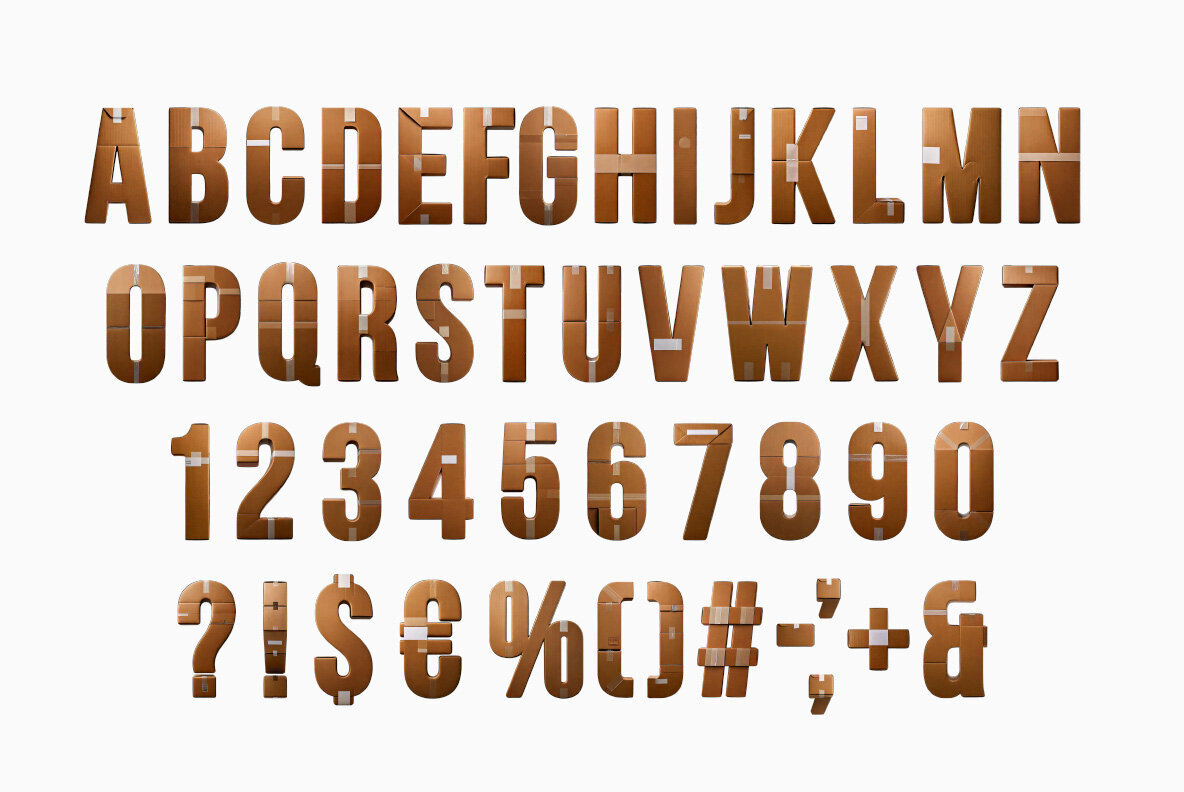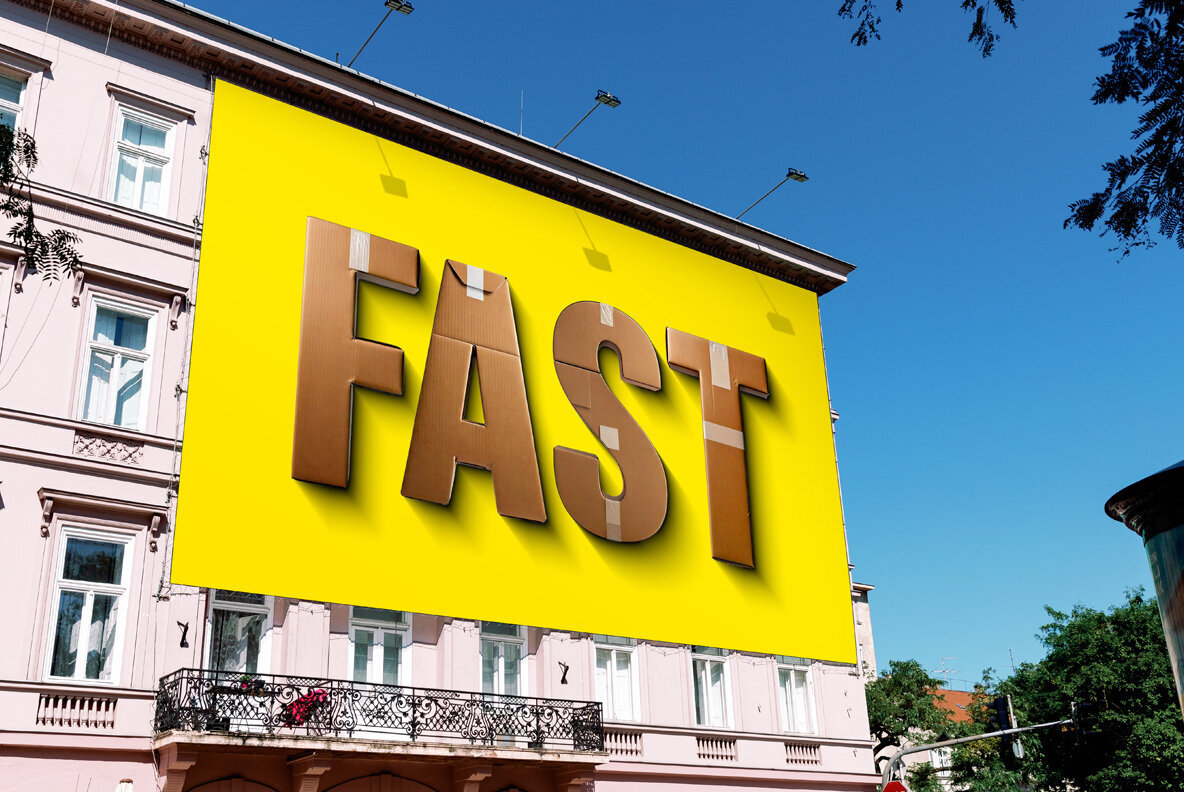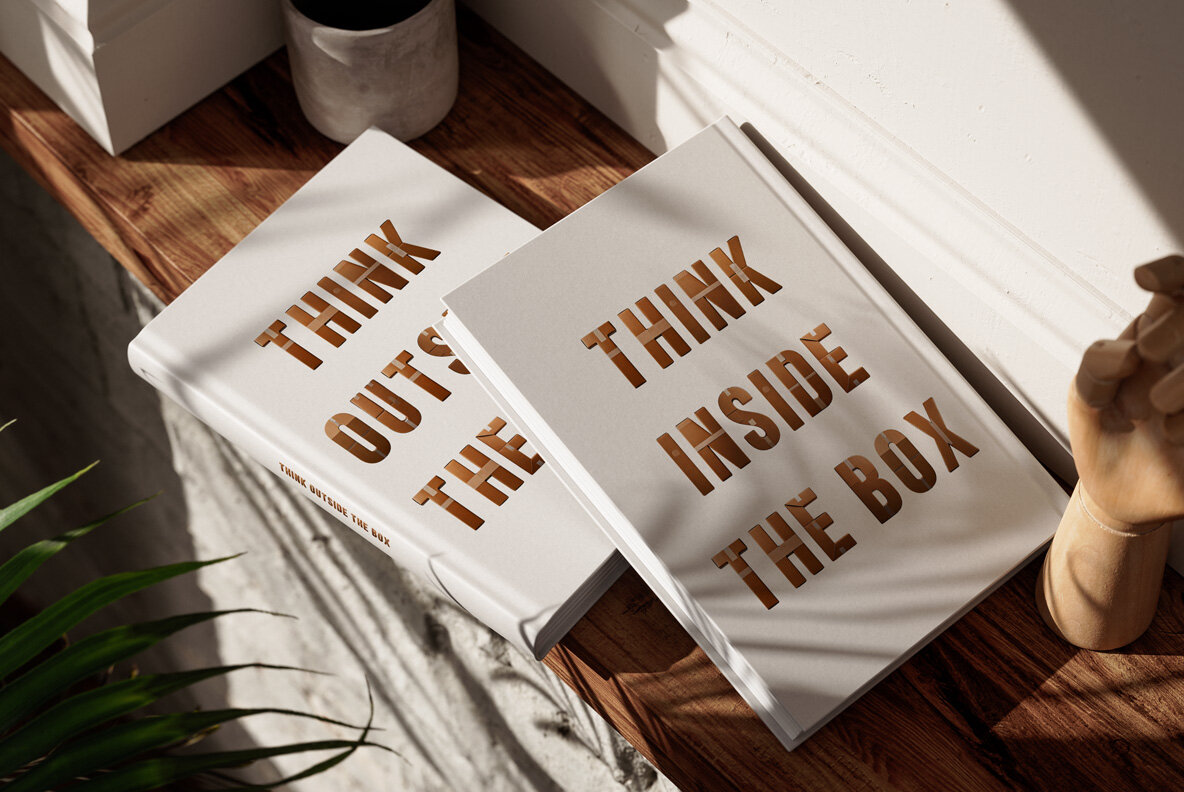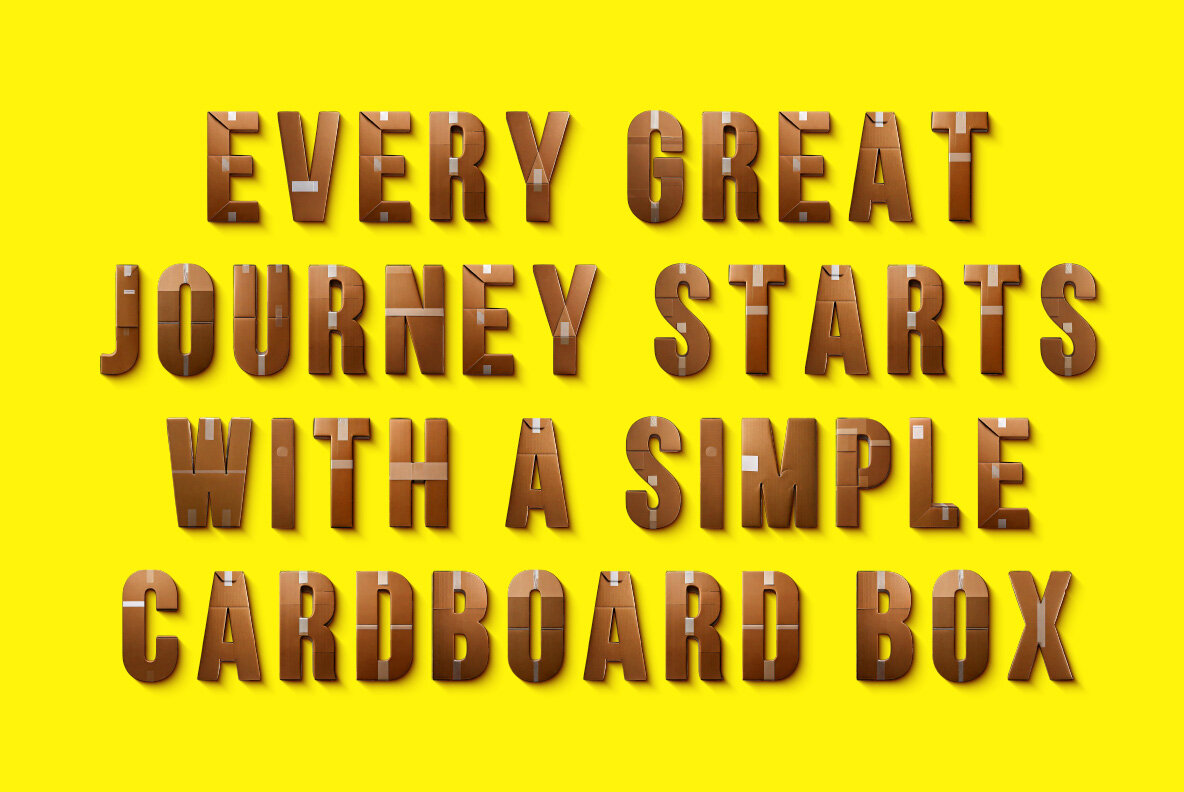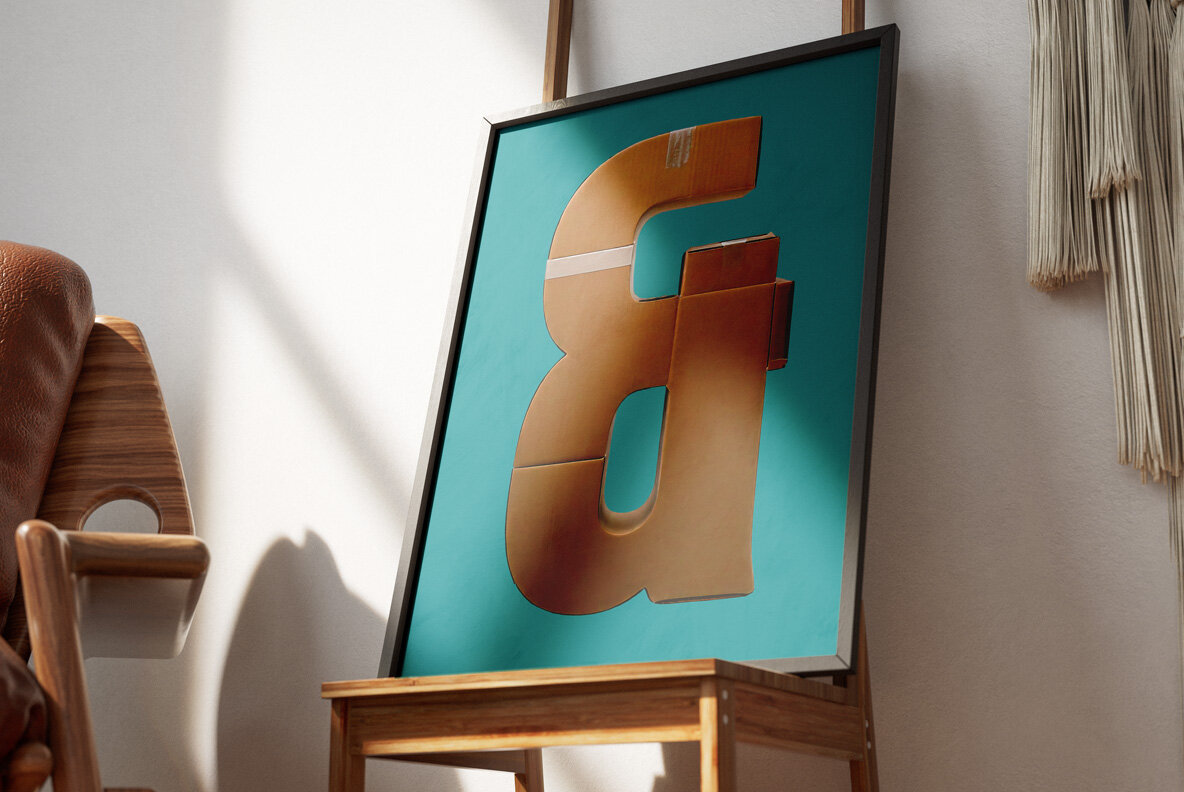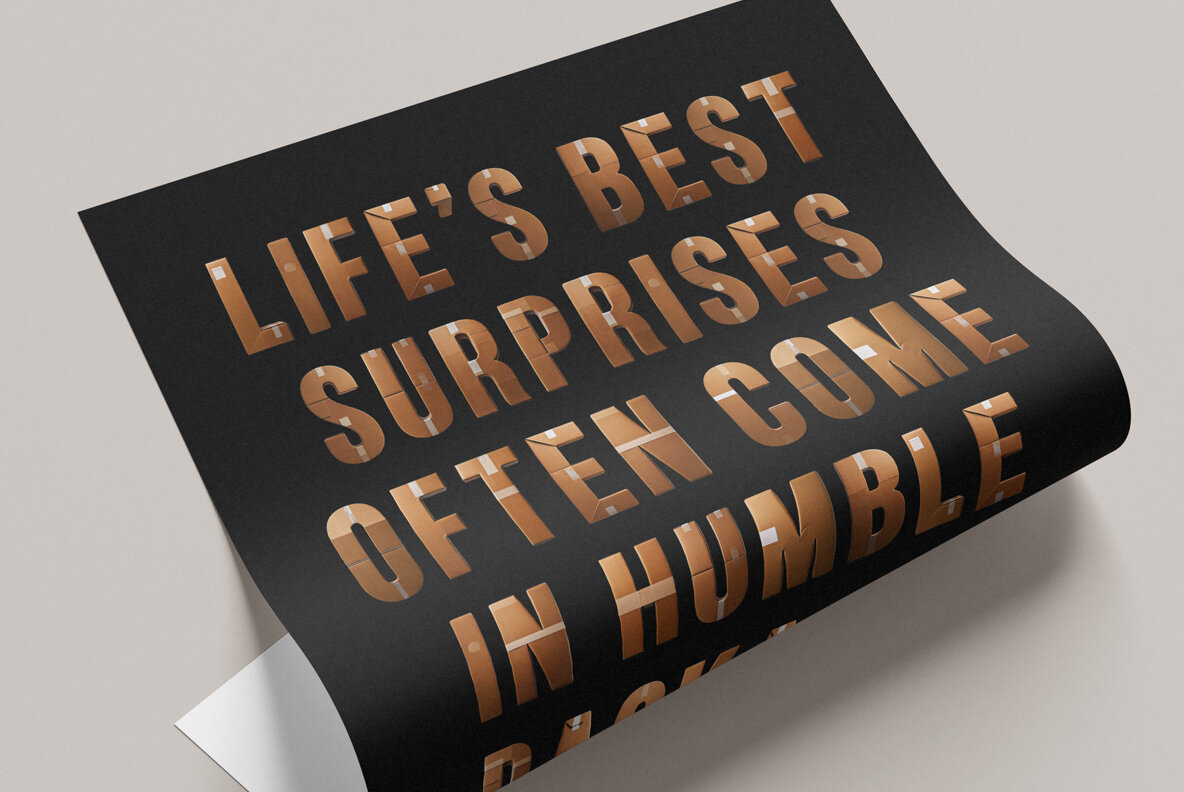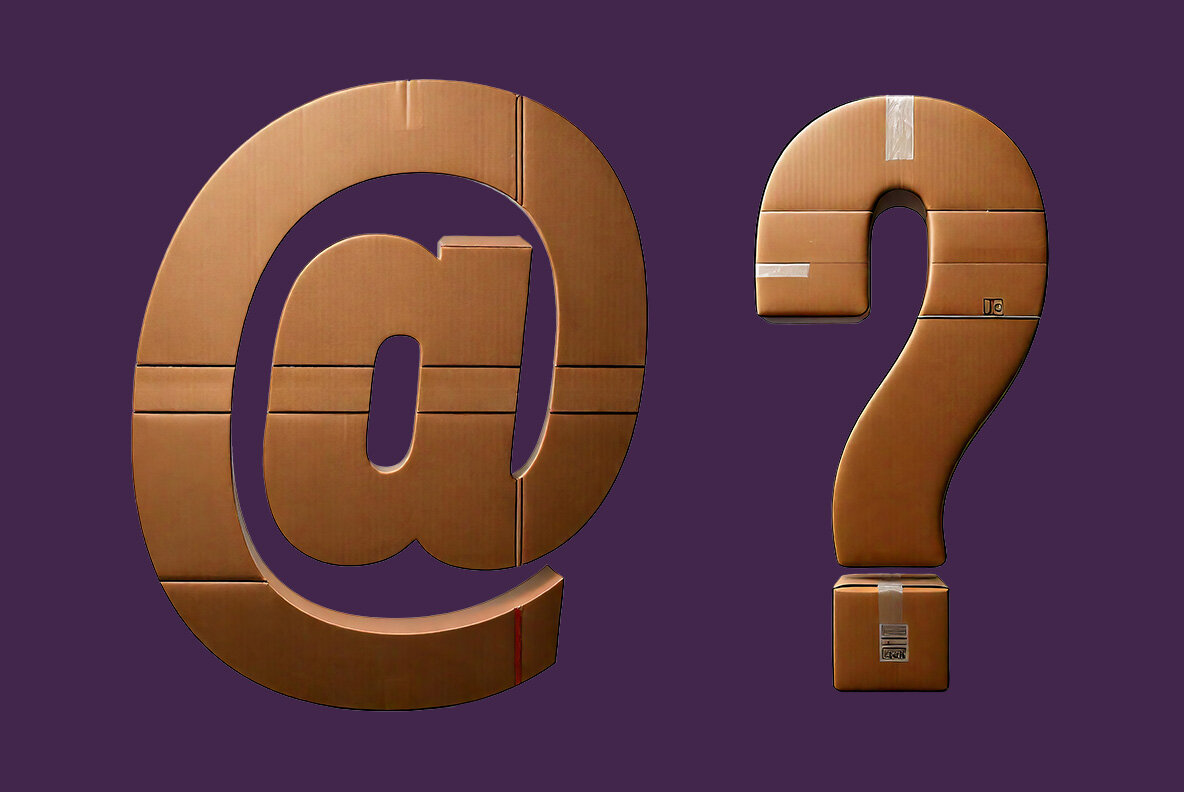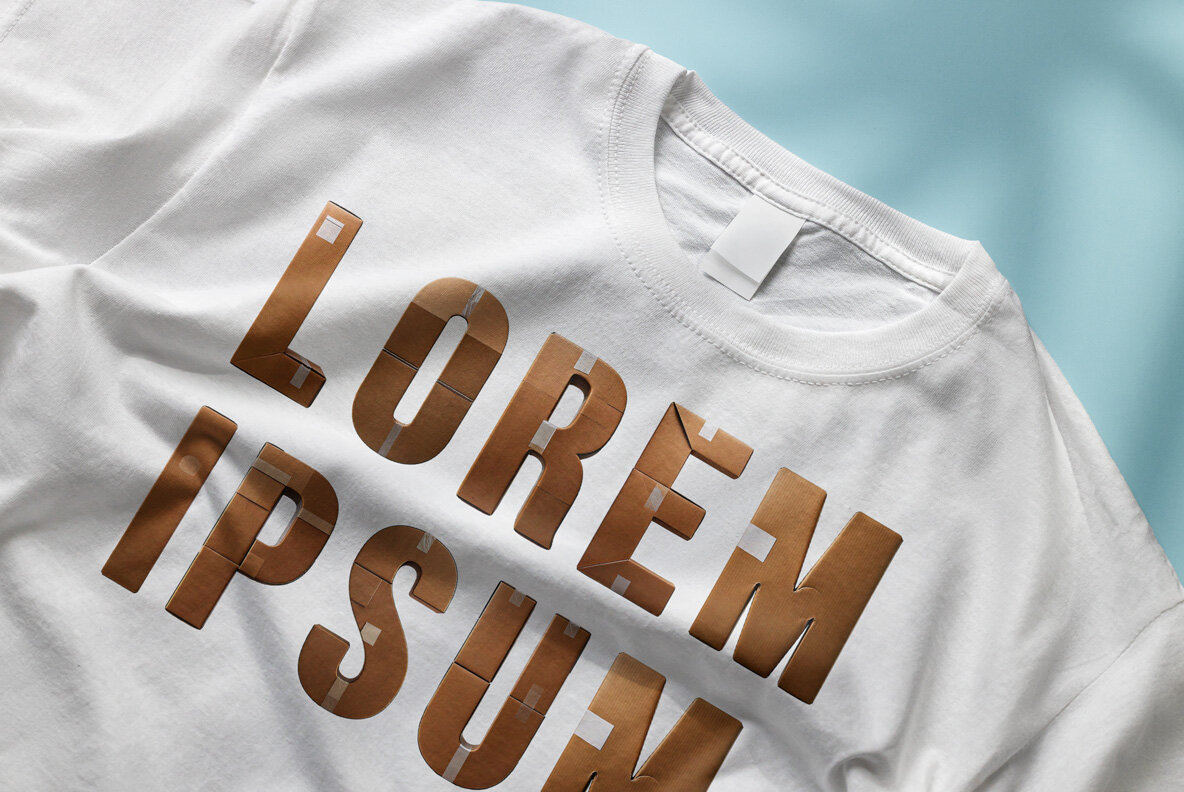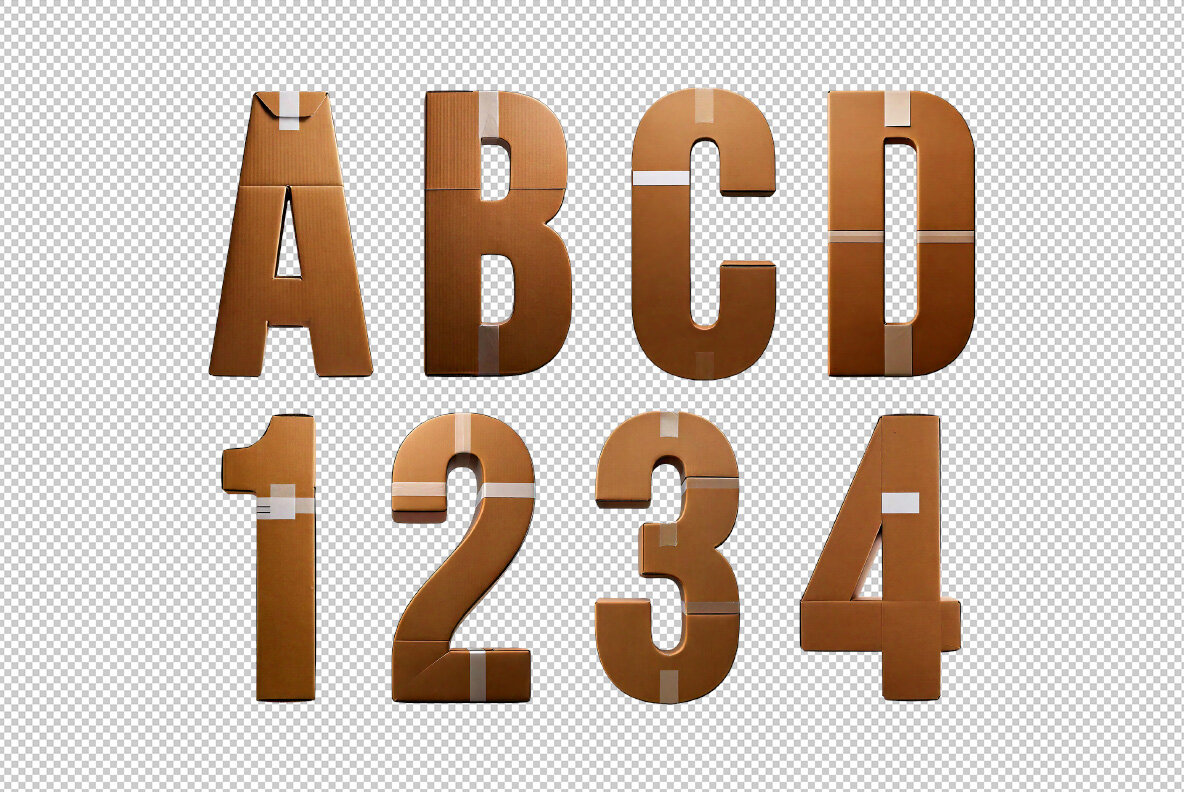
Delivery meets design in FlatPack Font, a unique typographic creation inspired by the humble cardboard box. Each letter is crafted to resemble the textured surface of brown corrugated cardboard, complete with realistic folds, creases, and indents. This box alphabet captures the essence of modern packaging, blending industrial charm with an eco-conscious aesthetic. The tactile appearance evokes a sense of practicality and sustainability, making it perfect for projects that celebrate recyclable materials or delivery-inspired themes. With its bold yet approachable design, FlatPack Font transforms simple cardboard into a striking visual statement, combining creativity with the versatility of everyday materials. A high definition OpenType Font. Contains uppercase characters, numerals and basic punctuation. (Draw height roughly 800 pixels). All letters and glyphs that comprises this font you can see on the preview. The font is a colour OpenType file which means this font will show up only in apps that are compatible with color bitmap fonts. Now that OpenType-SVG has been adopted as the industry standard, there is good chance that you can start using color fonts across your favorite software and hardware (Photoshop, Illustrator, InDesign, QuarkXPress, Keynote, PowerPoint, Word etc.) However all characters are also included as individual .png files which can be opened in any graphics software. Each letter comes as a separate PNG file on a transparent background. Each image has the high resolution size of 3000x3000px. This downloadable package contains 52 files. Letters : A B C D E F G H I J K L M N O P Q R S T U V W X Y Z Punctuation and Language Support. Due to the large nature of OpenType fonts, extended punctuation and language support are not included in the font files. However all punctuation characters and the following accents are included as individual image files in the .png letter set, which can be manually added to your text.